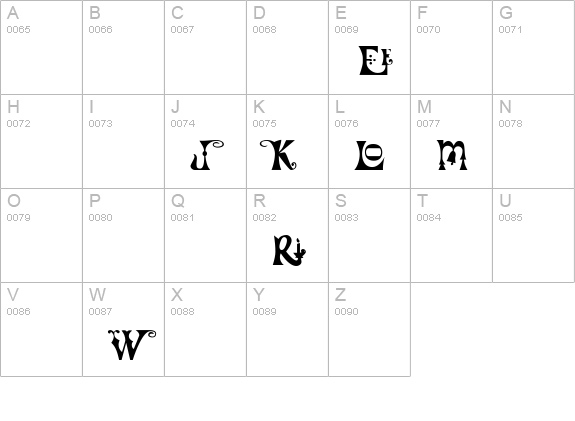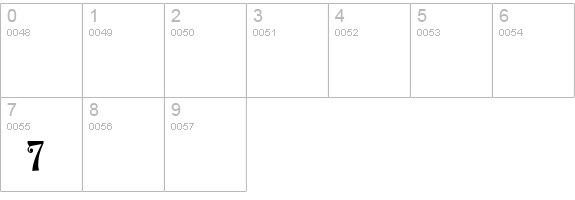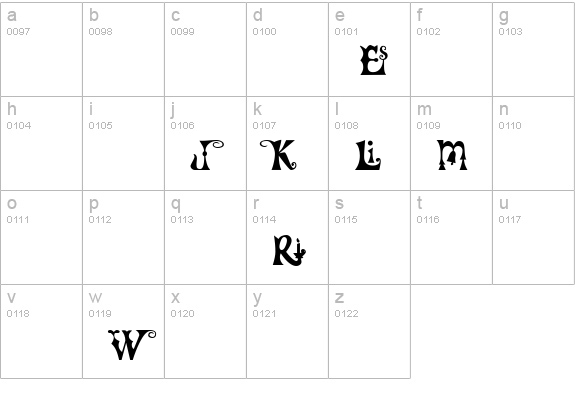
FrillyExtras Font Details
FrillyExtras font is a whimsical and ornate typeface that adds a touch of elegance and charm to any design project. With its intricate swirls and delicate details, this font is perfect for creating eye-catching invitations, posters, and branding materials. The best part? FrillyExtras font is completely free to download at FontsMarket.com! Whether you're a graphic designer looking to add a unique flair to your work or someone who just appreciates beautiful typography, this font is sure to impress. Don't miss out on the opportunity to enhance your projects with the beauty of FrillyExtras font, available for free download now.